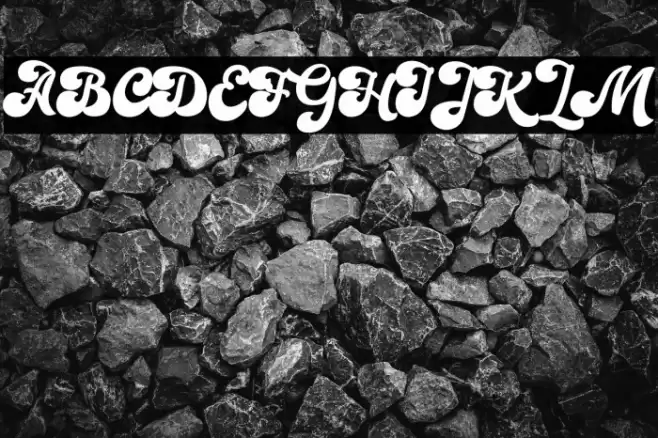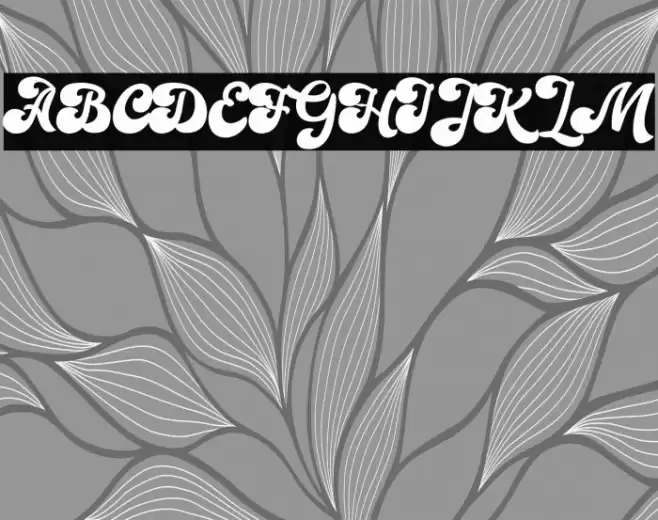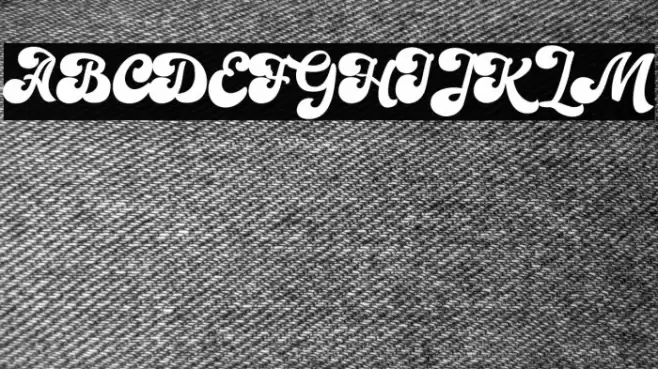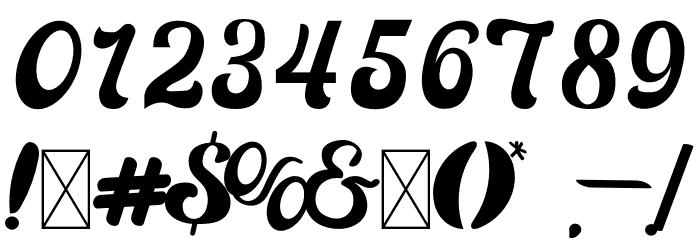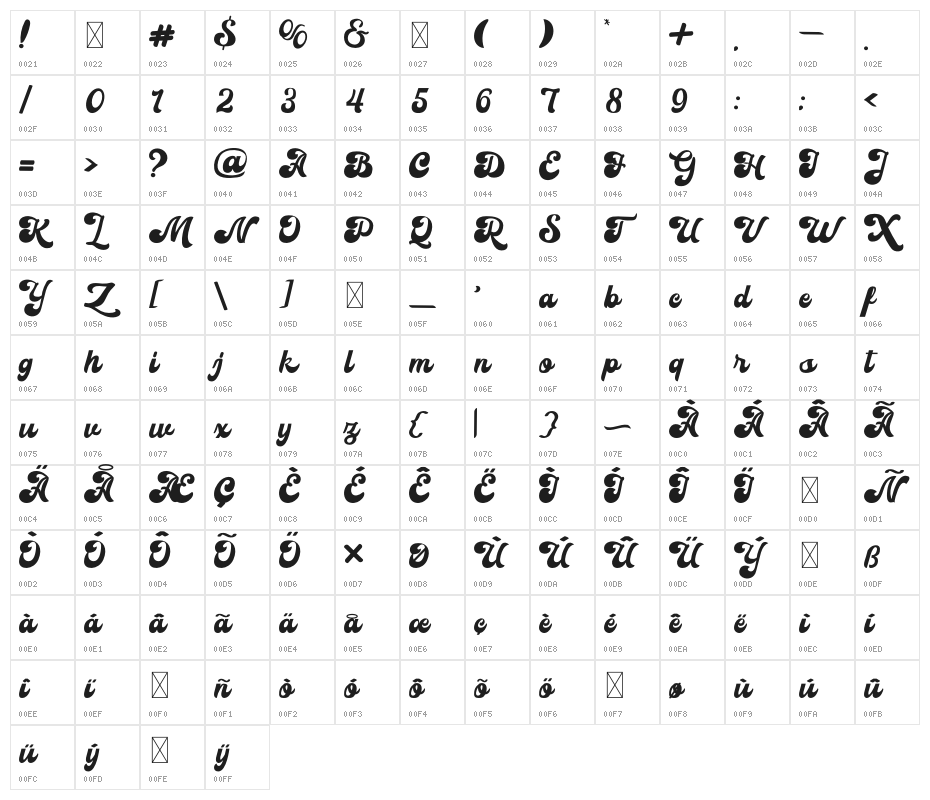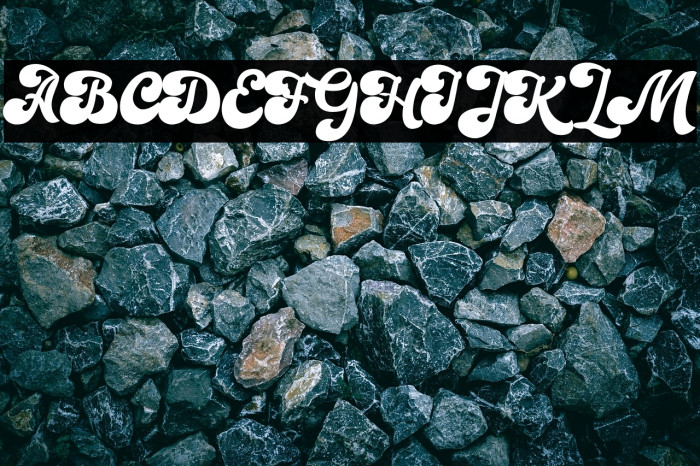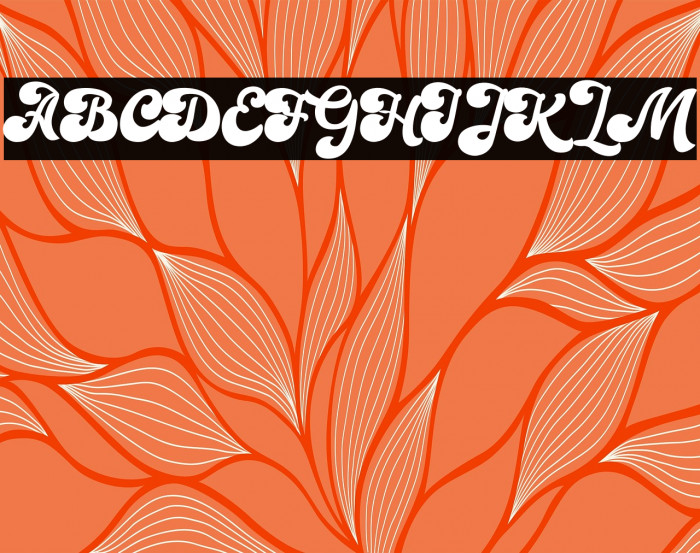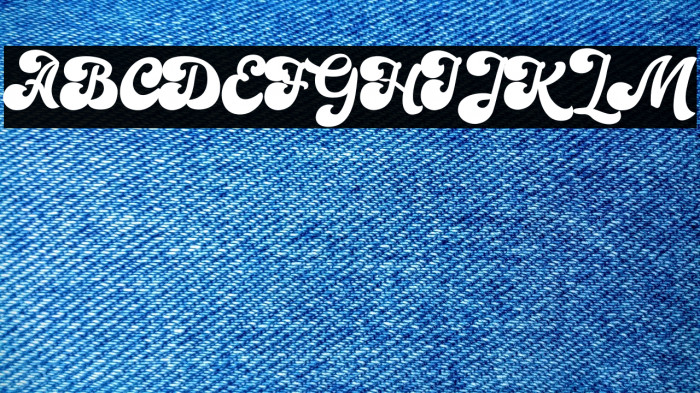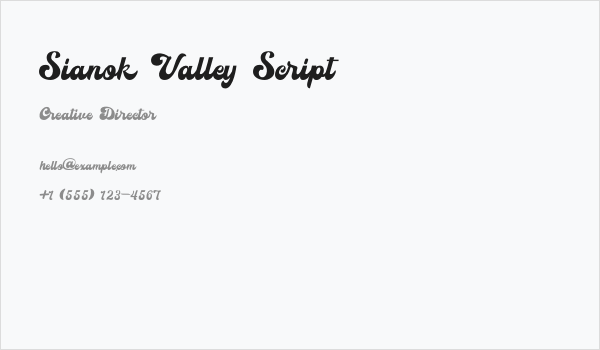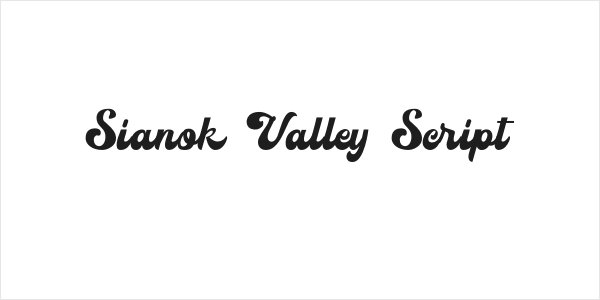
Sianok Valley Script Font
Sianok Valley Script Description
This script font exudes a bold and dynamic presence with its thick, flowing strokes and cursive style. The uppercase letters are characterized by their dramatic loops and swirls, giving a sense of elegance and movement. The lowercase letters maintain a consistent flow, enhancing readability while retaining a stylish flair. Numbers are equally bold, ensuring they stand out in any design. Special characters are crafted with the same attention to detail, making them perfect for decorative purposes. Overall, this font combines traditional script elements with a modern twist, making it versatile for various creative applications.
A bold, dynamic script font with elegant loops and swirls from Script fonts.
- Font: Sianok Valley Script
- Proposed Projects: Ideal for wedding invitations, branding, logos, and decorative headings.
- Use Case: Headlines, Logos, Invitations